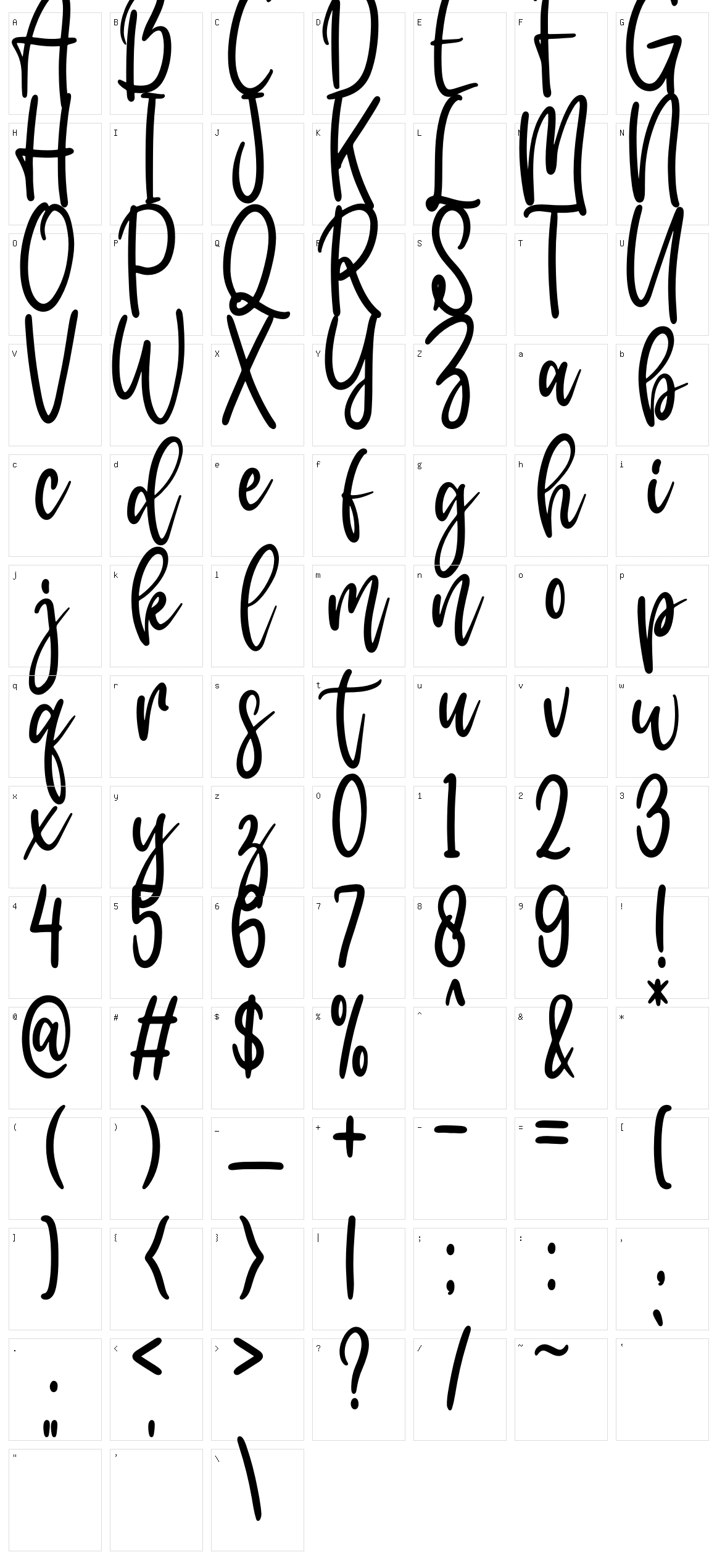
The free font Masterbaker is carefully designed by NJ Studio, showcasing a thoughtful balance of creativity and usability and falls under the Script font style. When you download the ZIP file, it contains only 54.86 KB of font files, making it lightweight and quick to download. Please review the license details below to understand permitted usage and distribution rights. If license information is not available, we recommend using this font for personal projects only or contacting the author directly for commercial usage permissions.